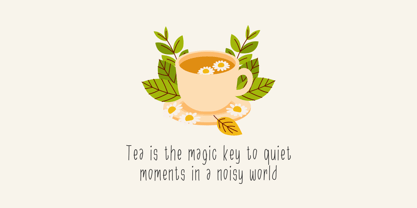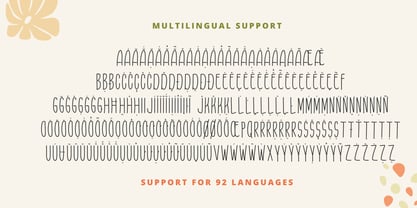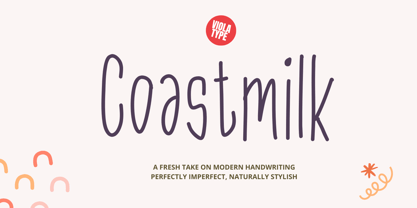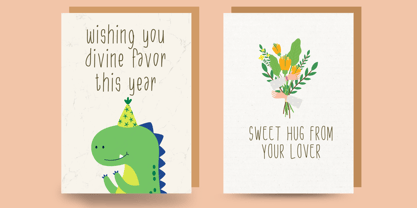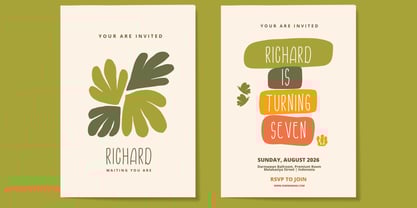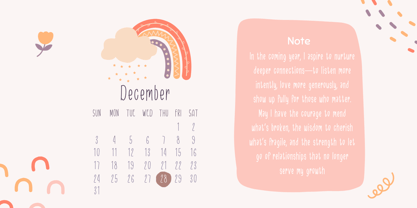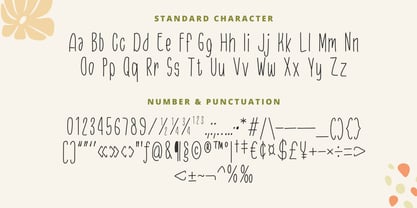
Coastmilk
by Violatype
The Coastmilk Font Family was designed by David Kasidi, Hasna Viola and published by Violatype. Coastmilk contains 1 styles.
Introducing Coastmilk – a modern, elegant handwritten font that speaks with softness and clarity.
Crafted with a clean, minimalist touch, this font offers smooth curves, natural rhythm, and thin strokes that beautifully mimic the simplicity of handwritten notes. It’s the perfect balance between casual and refined making it highly versatile for a wide range of creative projects.
Whether you’re designing logos, quotes, branding materials, product packaging, web headers, or social media content, this font brings a sense of calm, elegance, and modern charm.
The light and airy letterforms make your text feel approachable, fresh, and sophisticated without overwhelming the design.
Included with the font are full uppercase and lowercase letters, numbers, punctuation, and multilingual support, giving you everything you need to craft stylish compositions with ease.
Perfect for:
Branding • Fashion • Quotes • Journals • Instagram • Invitations • Blog Headers • Minimal Posters • Editorial Layouts • Personal Projects